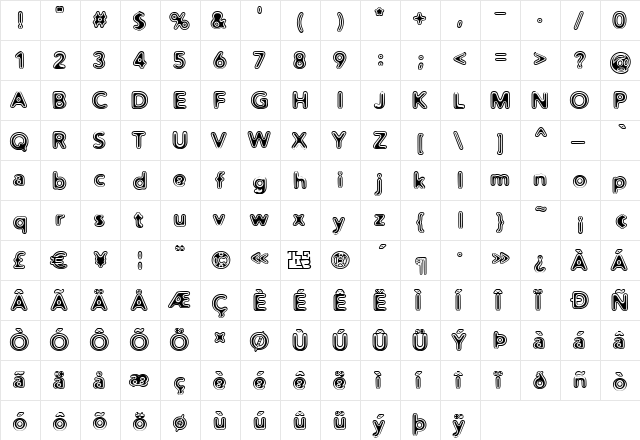
Distro II Vinyl Vinyl
| Designer | Peter A Designer |
Design Context for Distro II Vinyl Typeface
Distro II Vinyl is a composed and adaptable typeface that performs quietly and consistently across a wide range of design contexts.